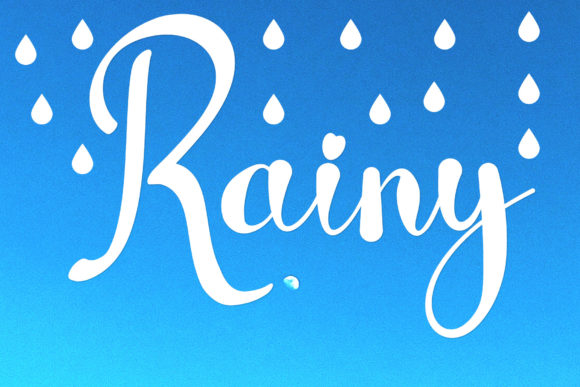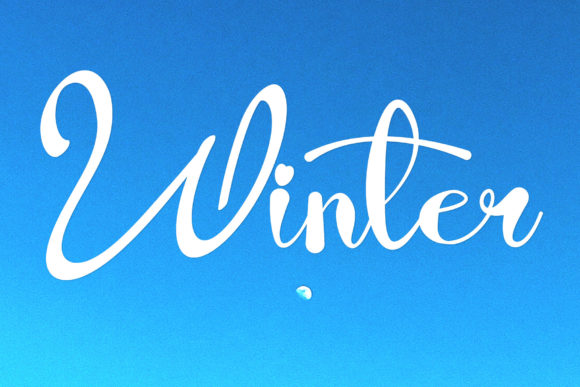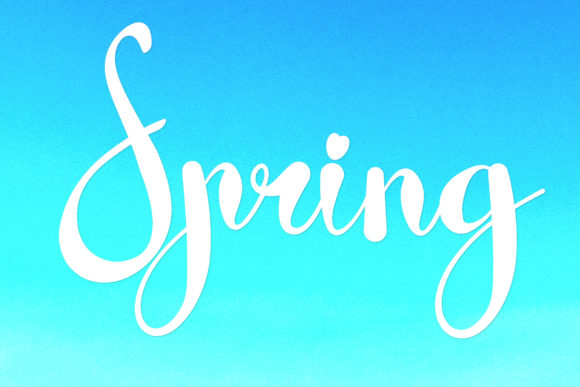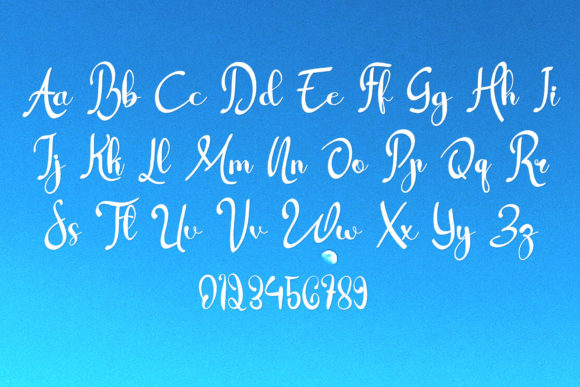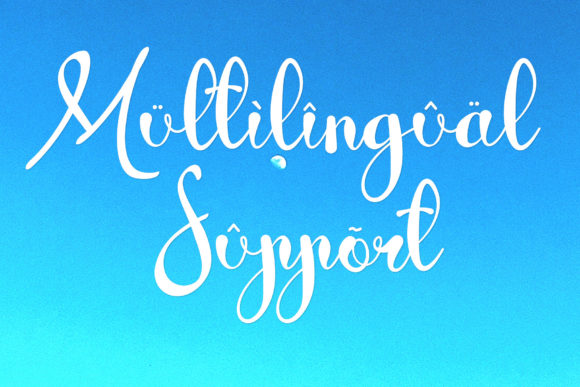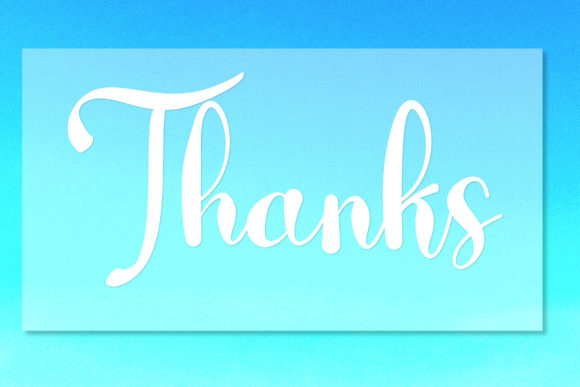
The Air Near Font: Elevating Your Designs with Elegance
I’ll never forget the moment I stumbled upon the Air Near font. I was working on a branding project for a luxury client, and I was struggling to find the perfect script font that exuded elegance and sophistication. The client wanted a font that would make their brand stand out, but still convey a sense of refinement and poise. That’s when I discovered Air Near, a stylish and delicate script font that instantly caught my eye.
As I began to experiment with Air Near, I realized that it was more than just a beautiful font – it was a versatile tool that could elevate a wide range of crafting ideas, from cards to branding, labels, and much more. In this article, I’ll share my honest review of Air Near, provide a practical guide on how to use it, and explore similar fonts that you might love.
An Honest Review of Air Near
- ✨ Elegant and refined design that’s perfect for luxury brands
- 💫 Beautifully crafted swashes and flourishes that add a touch of sophistication
- 🎨 Extensive character set, including support for multiple languages
While Air Near is an exceptional font, there are a few quirks to be aware of:
- ⚠️ Some users may find the font a bit too delicate for certain design applications
- 🤔 Limited availability of bold or heavy weights, which may not be suitable for all design needs
A Practical Guide to Using Air Near
- Experiment with the font’s OpenType features, such as swashes and stylistic alternates, to add visual interest to your design
- Access the font’s glyphs and OpenType features through the Character panel or Glyphs panel
- Use the font’s stylistic alternates and glyphs to add visual interest to your document
The Designer Inspiration Behind Air Near
Air Near was designed with the intention of creating a font that exudes elegance and sophistication. The designer aimed to craft a font that would be perfect for luxury brands, high-end products, and creative projects that require a touch of refinement. With its delicate lines, beautiful swashes, and extensive character set, Air Near is a true masterpiece that will elevate your designs to new heights.
A: Air Near is a versatile font that can be used in a variety of design applications, from branding and packaging to cards and labels. Experiment with different font sizes, colors, and OpenType features to find the perfect look for your project.
A: Yes, Air Near has an extensive character set that supports multiple languages, making it a great choice for international design projects.
A: Absolutely! Air Near pairs well with a variety of fonts, from sans-serifs to serifs. Experiment with different font combinations to find the perfect look for your project.